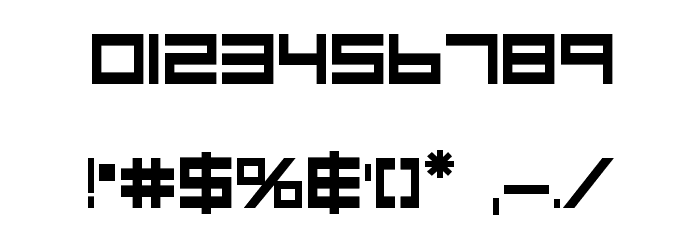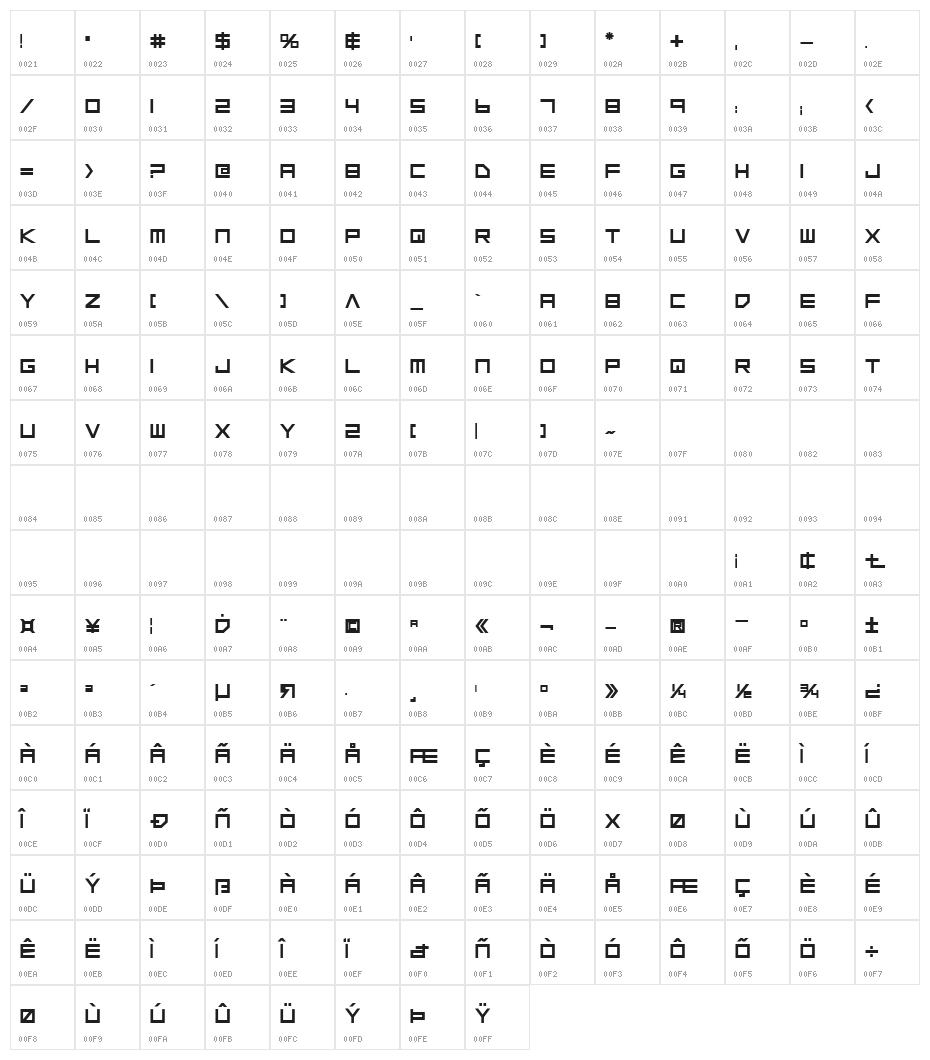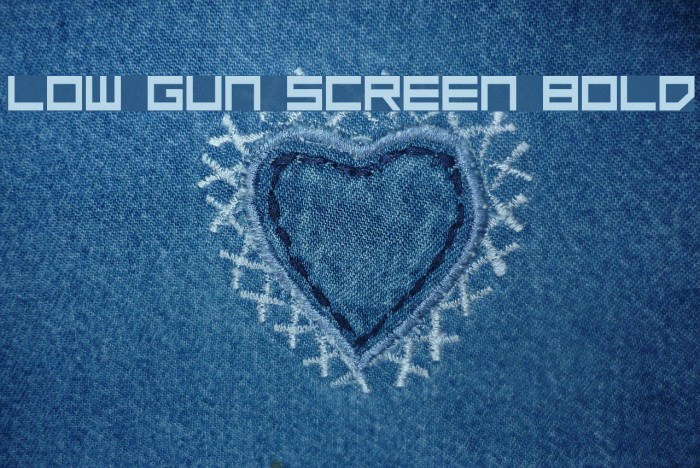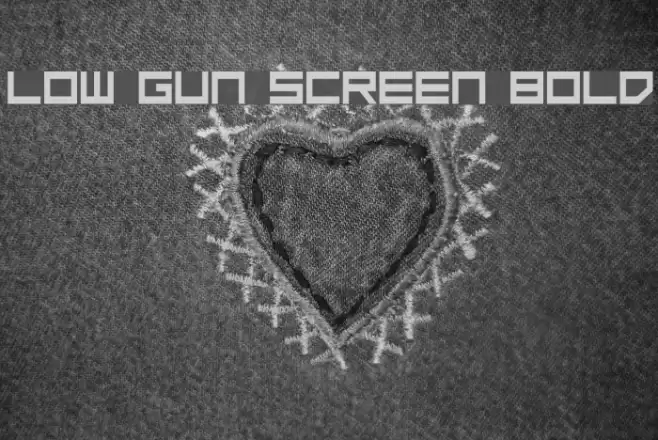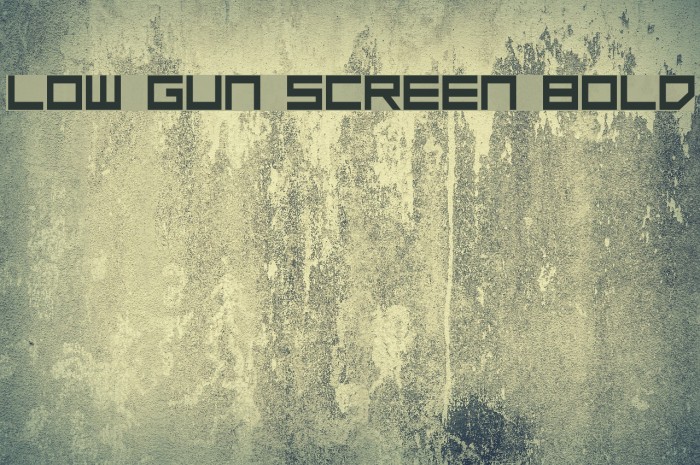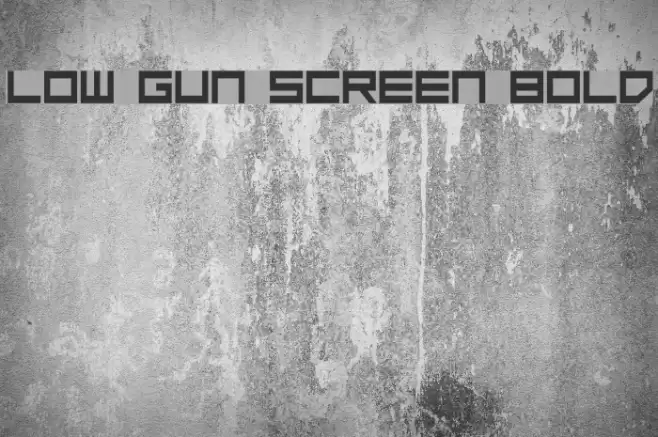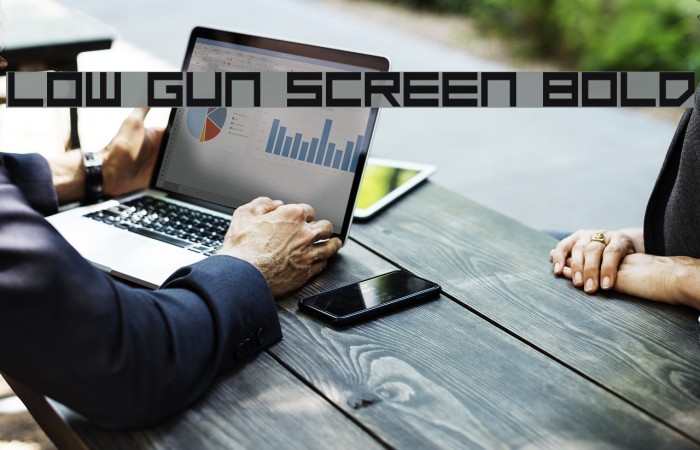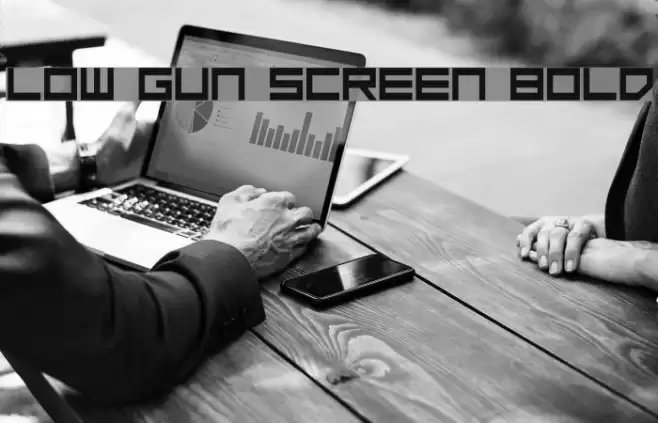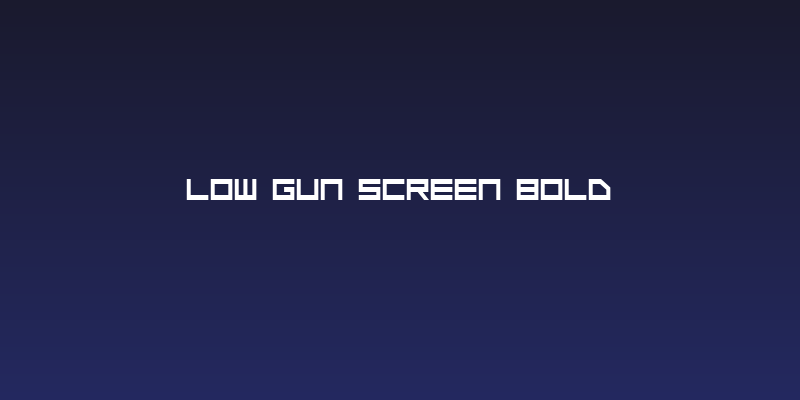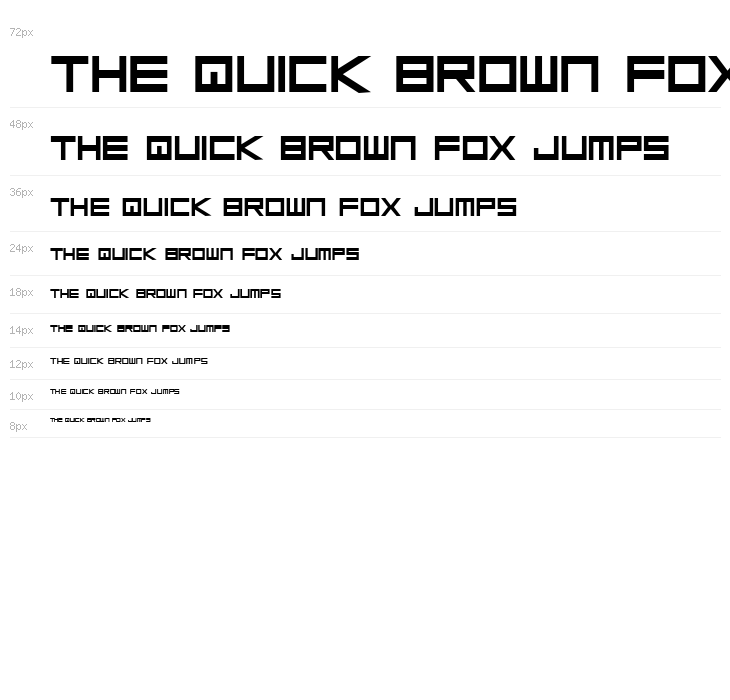
Low Gun Screen Bold Font
Low Gun Screen Bold Description
This font features a bold, geometric design with a modern and futuristic aesthetic. The characters are constructed with straight lines and sharp angles, giving it a digital and tech-inspired look. The uppercase letters are uniform in height, while the lowercase letters maintain a consistent style, enhancing readability. The numerals and special characters follow the same geometric pattern, ensuring a cohesive appearance across all glyphs. Its bold weight and structured form make it ideal for impactful visual statements.